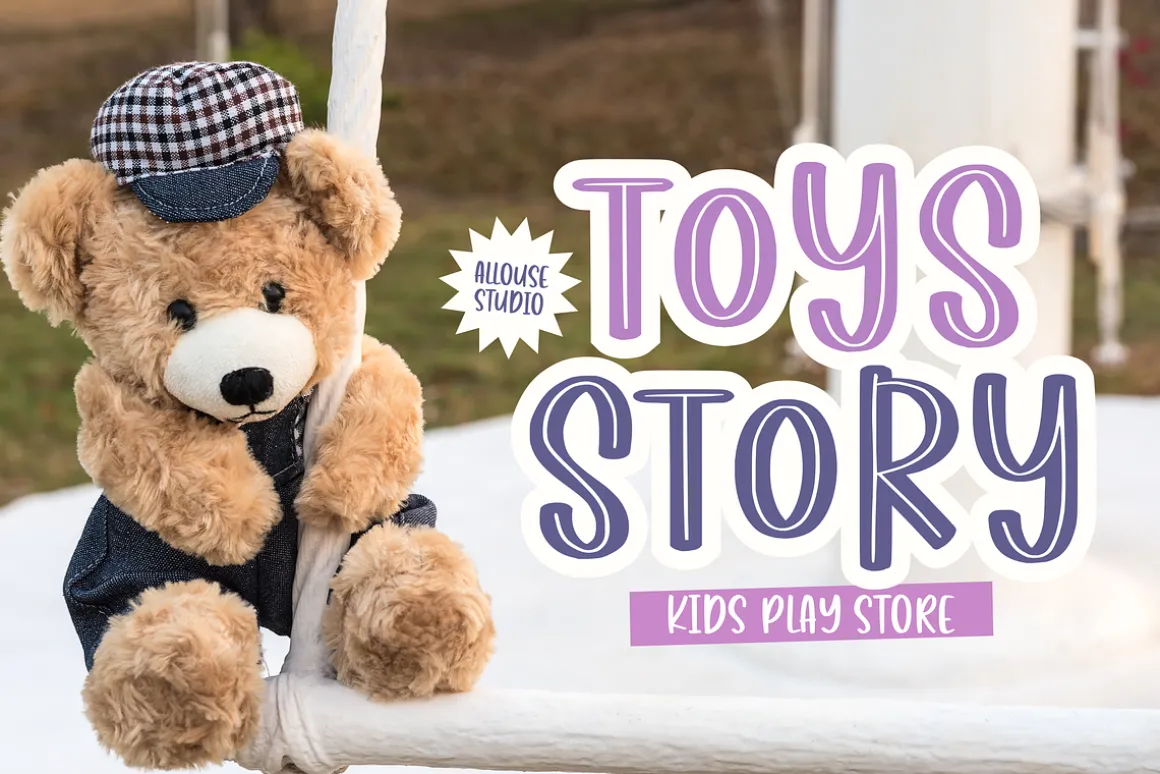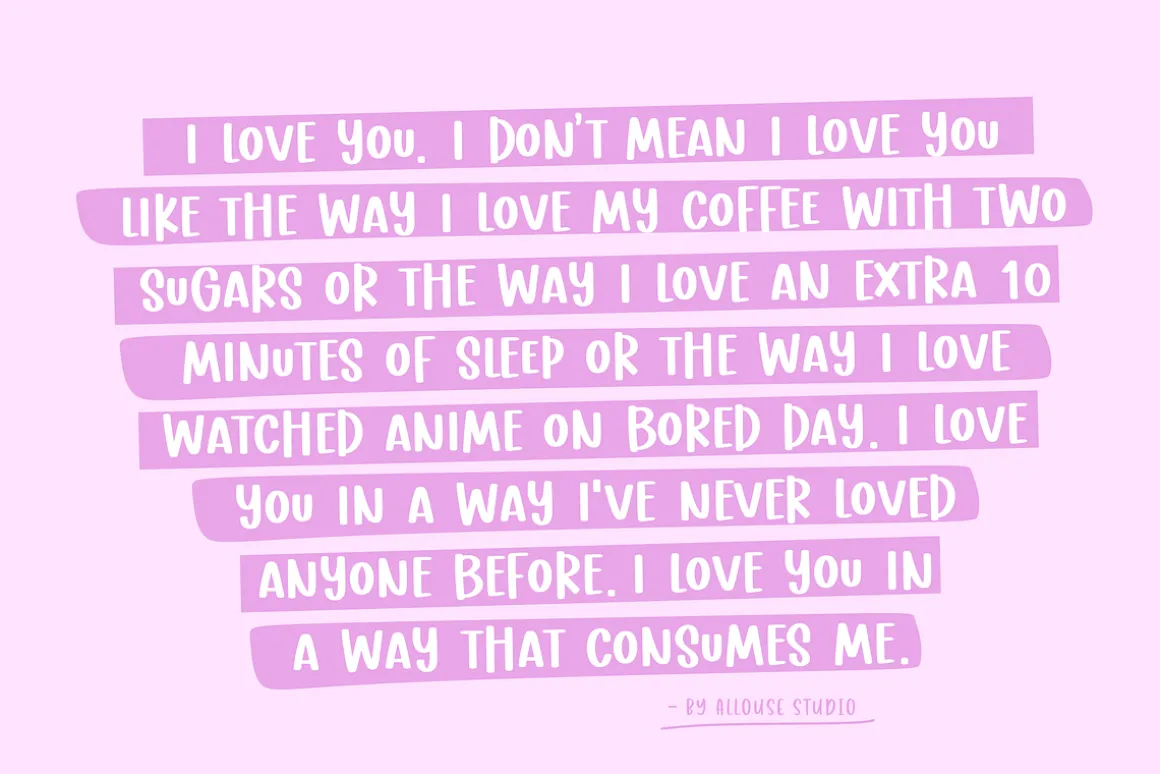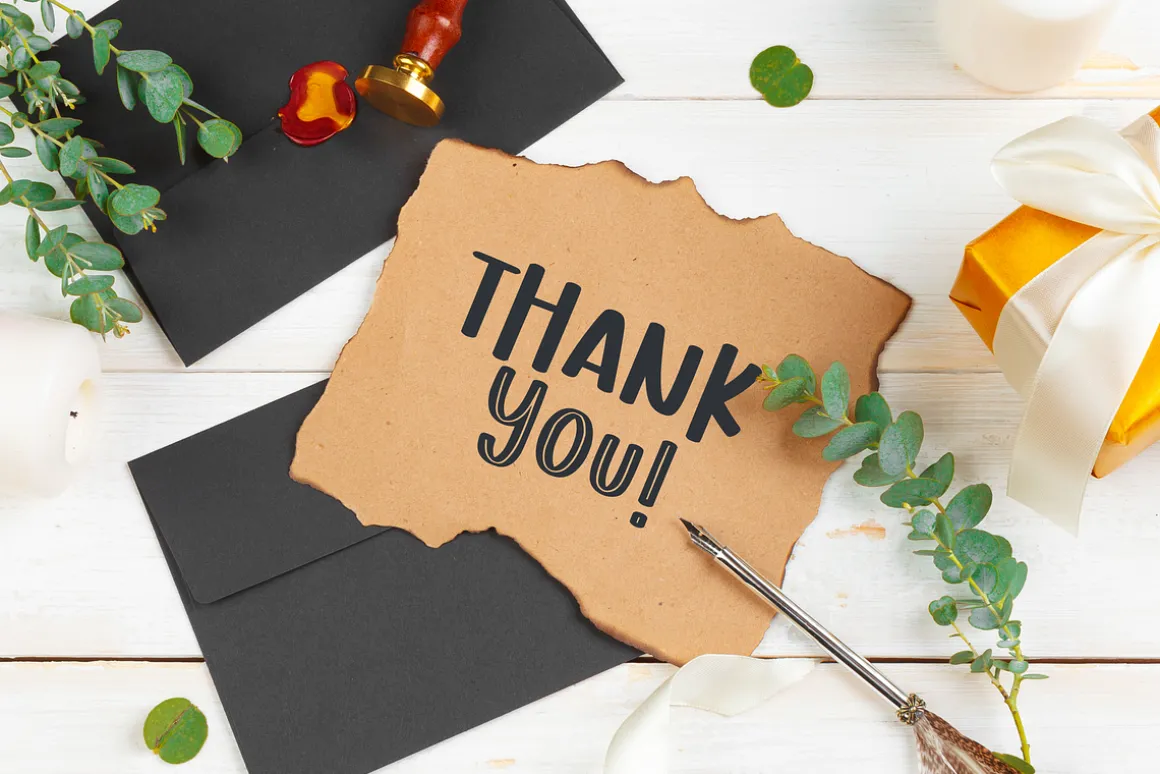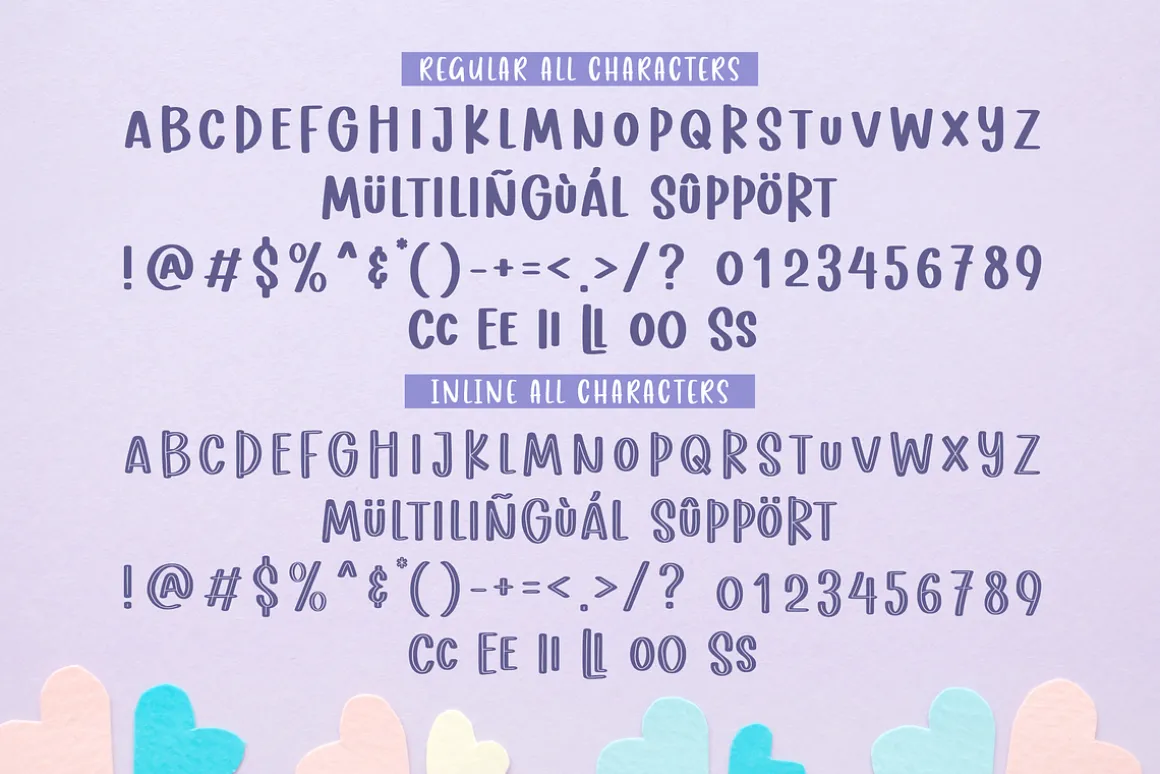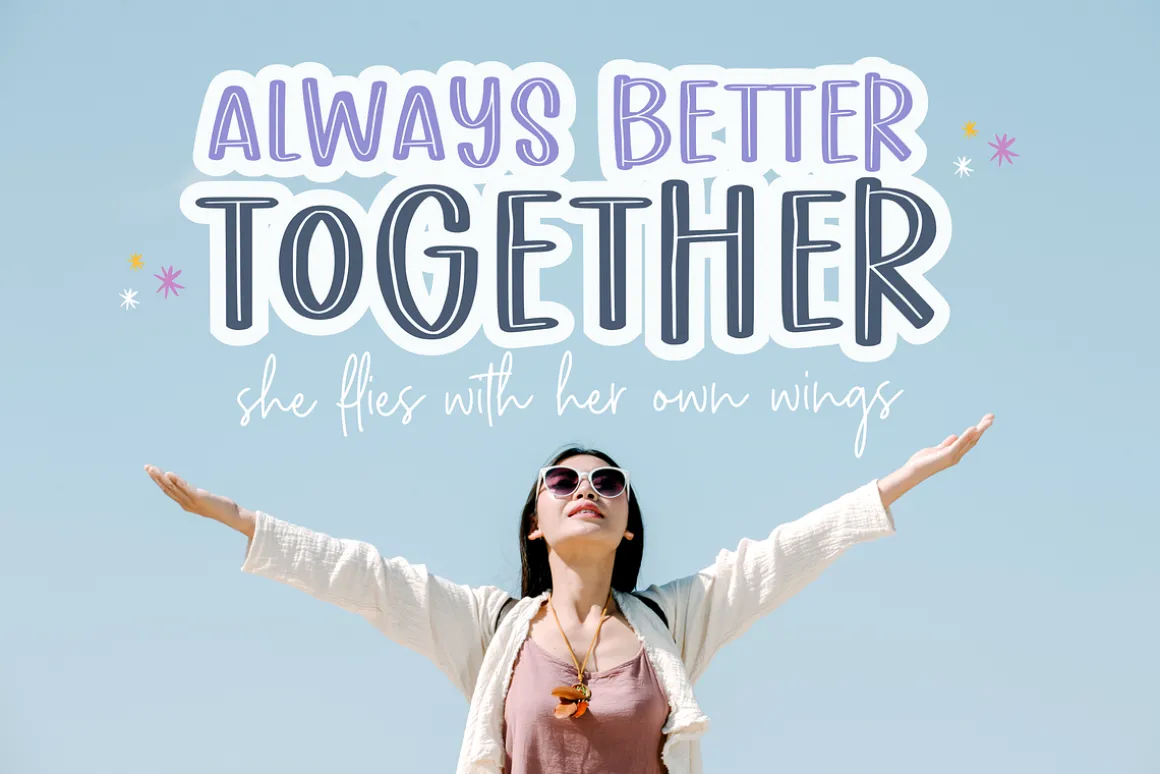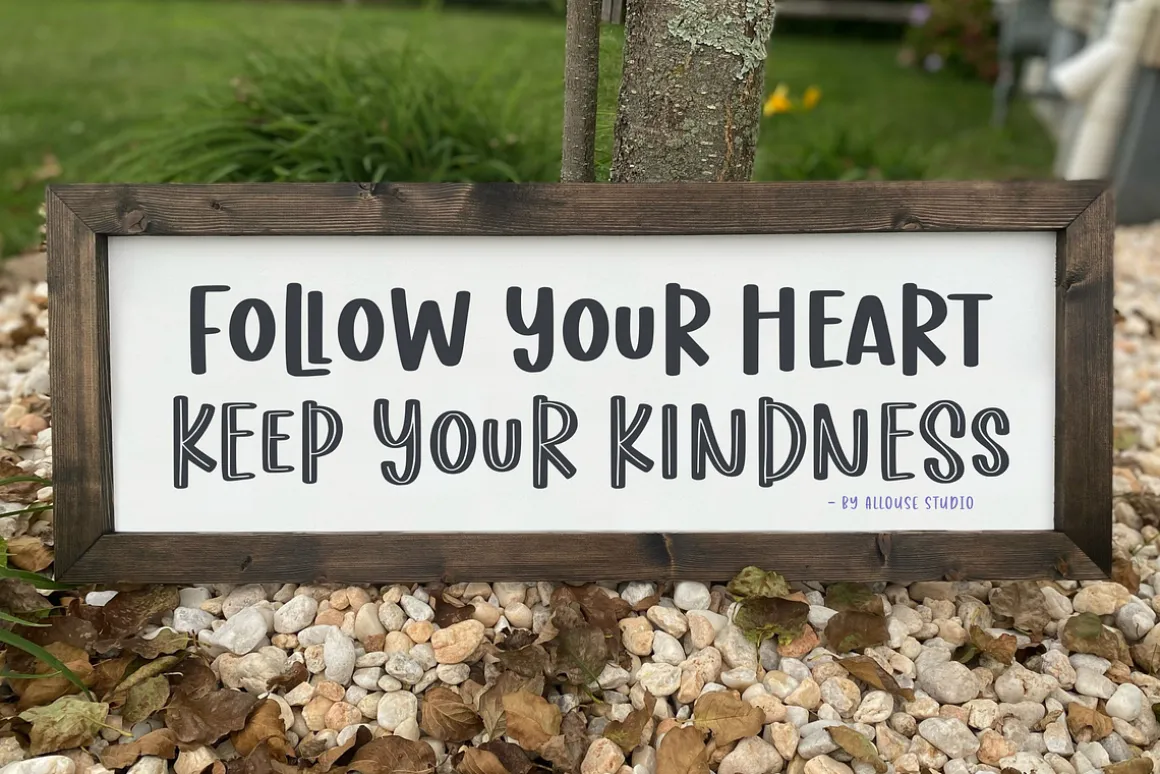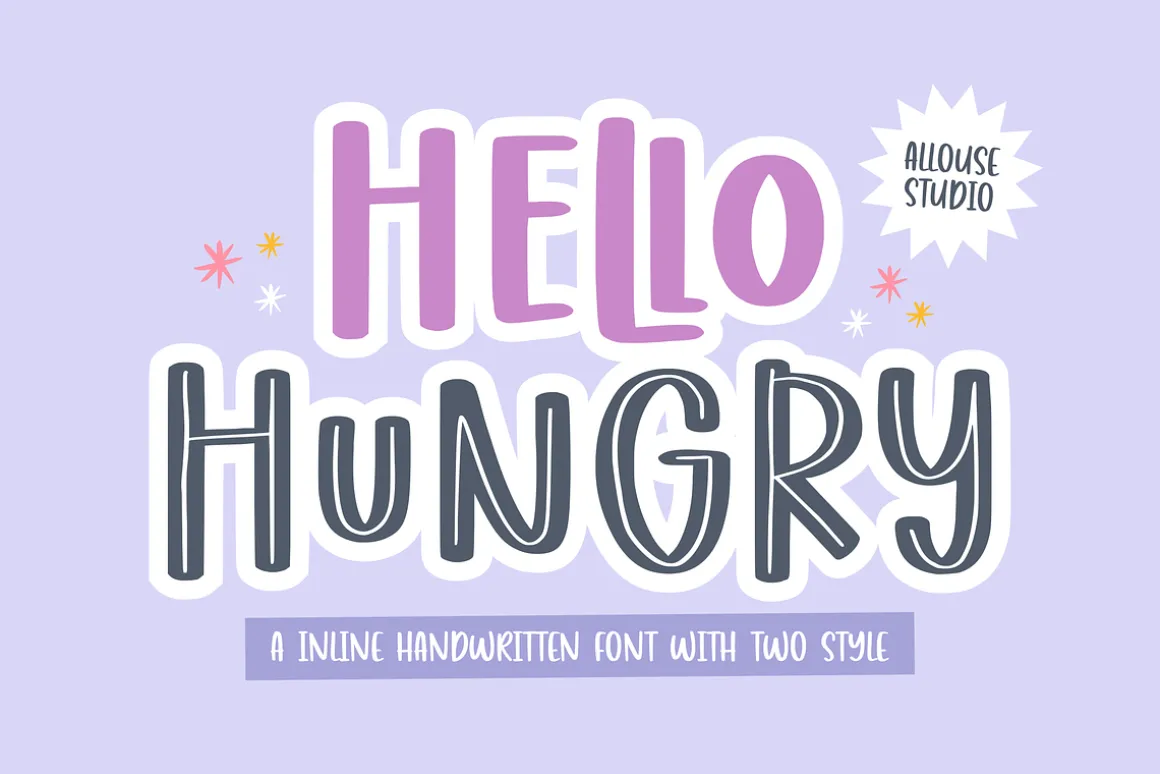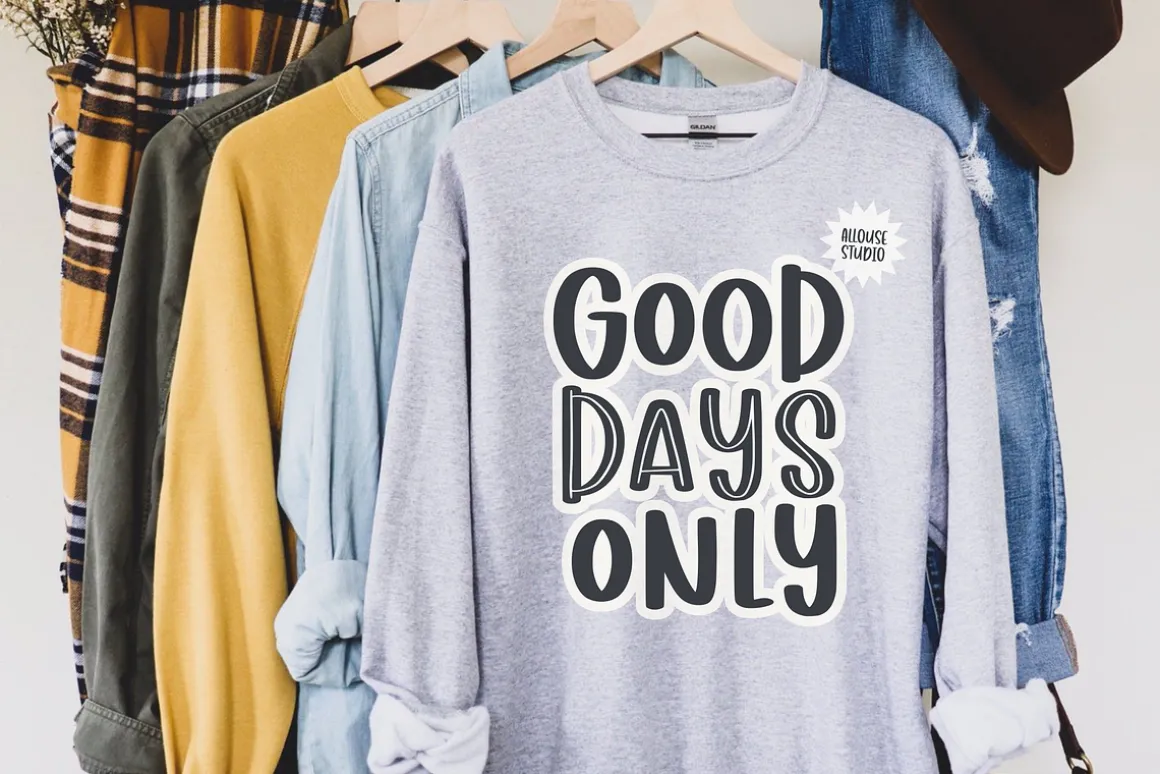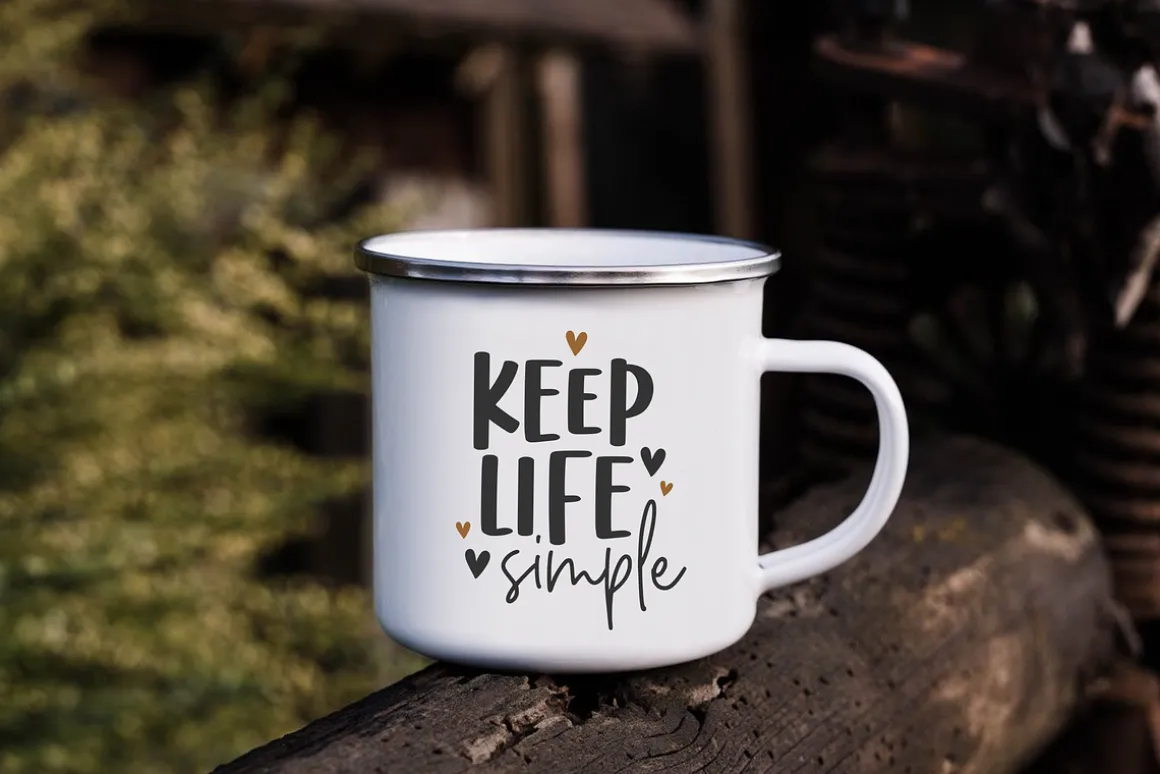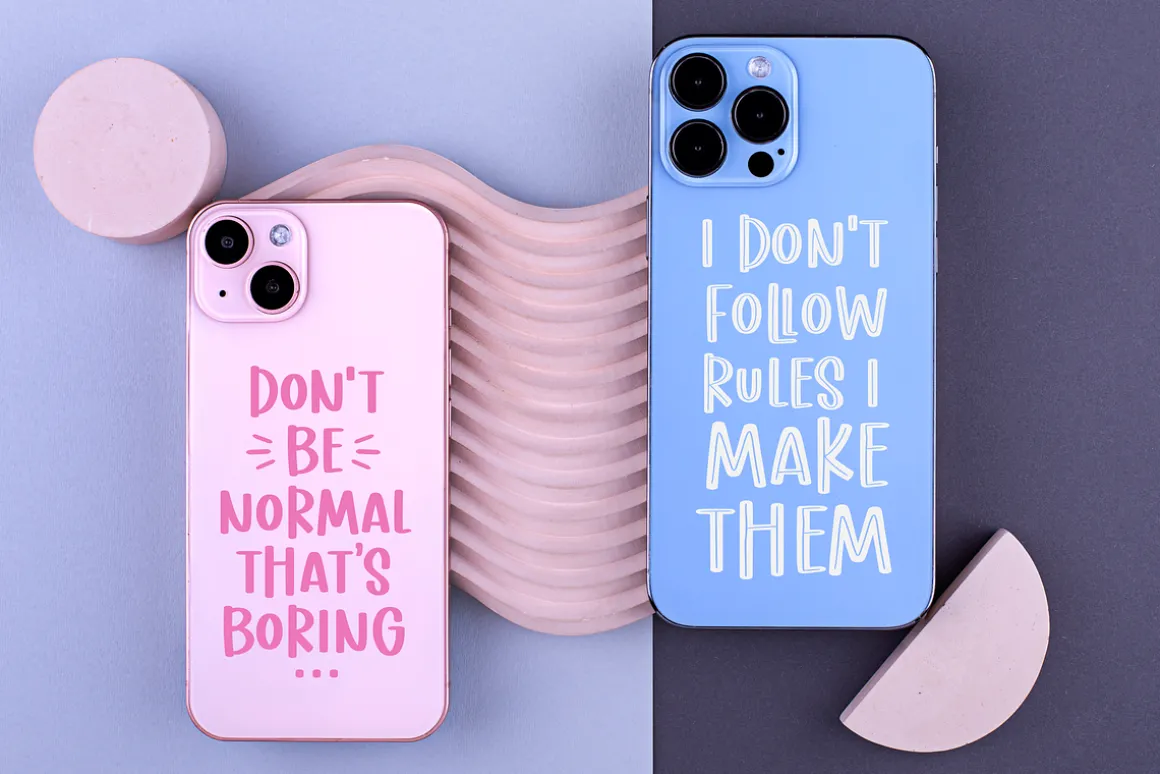
Proudly Presenting, Hello Hungry A Inline Handwritten Font With Two Styles.
Hello Hungry is perfect for any titles, logo, product packaging, branding project, megazine, social media, wedding, or just used to express words above the background.
Hello Hungry also come with Multi-Lingual Support.